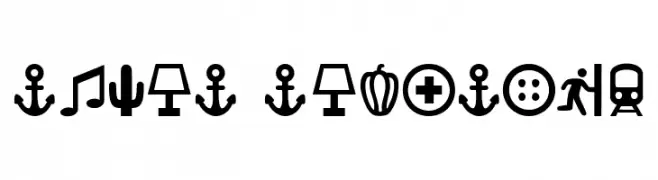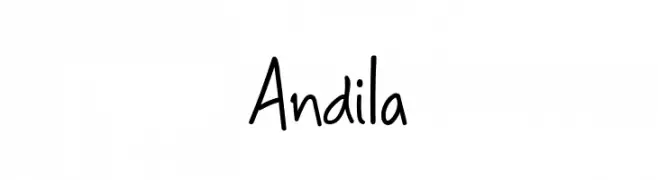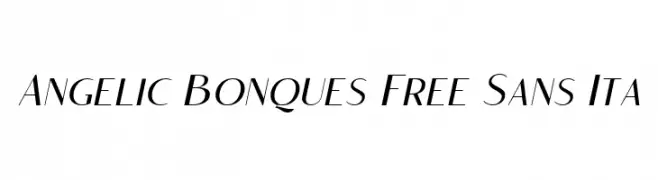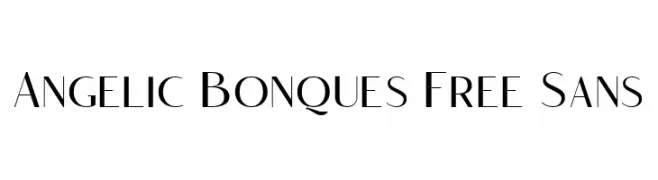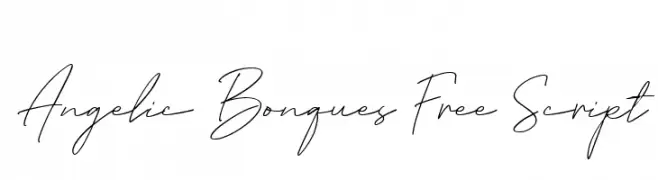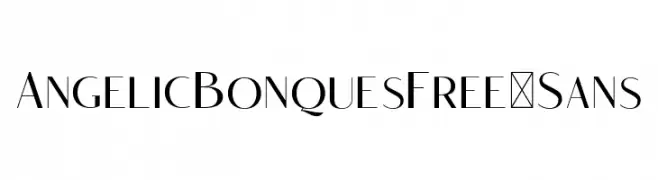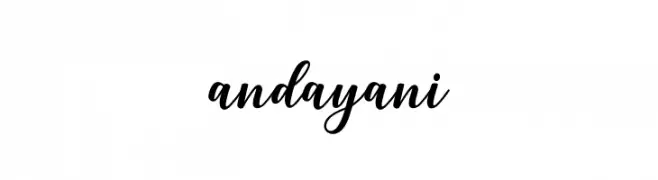
A delicate and flowing script font with elegant cursive letterforms.
An elegant script font with fluid, cursive strokes and a classic charm.
A bold iconographic font composed of clear, playful pictograms.
An elegant script font with flowing, cursive letterforms and a classic, decorative style.
A playful, casual handwritten font with irregular strokes and a dynamic feel.
A modern, elegant font with geometric shapes and consistent stroke width.
A sleek, modern italic font with high contrast and elegant style.
An elegant, cursive handwritten font with smooth, flowing strokes.
A sleek, modern sans-serif font with high contrast and elegant design.
A sleek, italicized sans-serif font with medium contrast and modern appeal.